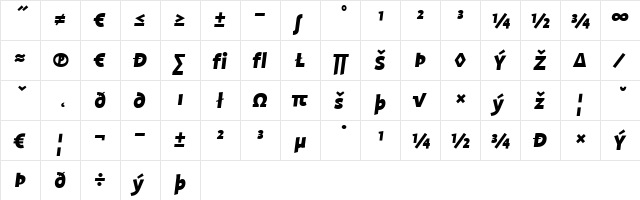
ProfileXP Black Italic
Design Context for ProfileXP Typeface
ProfileXP takes a measured approach to typography — its balanced proportions and neutral character make it a reliable workhorse for both digital and print work. The slanted form adds forward momentum and visual energy.
Pro Tip: Try ProfileXP for annotation and caption copy alongside an upright companion — the contrast in angle creates a dynamic but ordered typographic system.